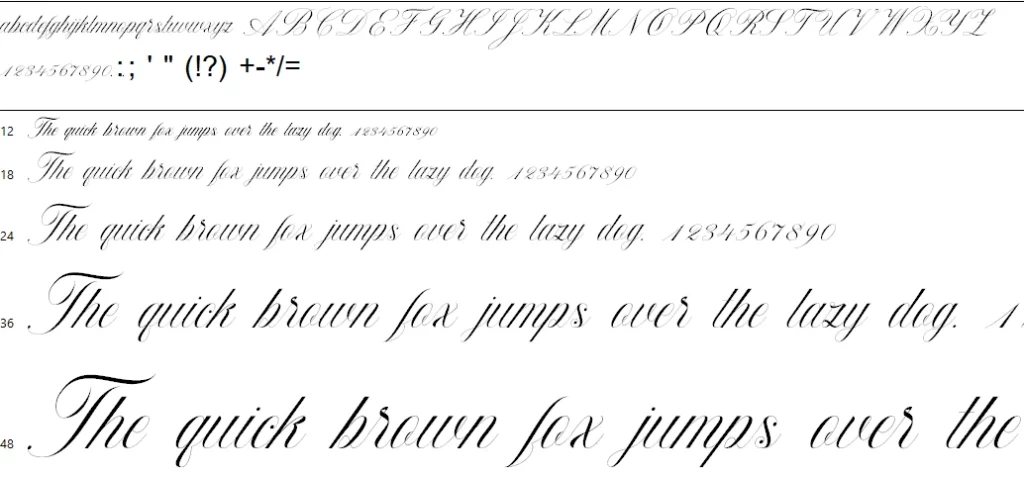
Good day, Guys! We’re going to talk about Beauty Athena Calligraphy Font today. This is a contemporary calligraphy and script font with refined accents. Athena, the goddess of wisdom, courage, inspiration, mathematics, strength, strategy, arts, crafts, and talent, is the inspiration for this piece. This Font is a font with adorable changing characters, reminiscent of a vintage ornate copper letter with a modern twist.
It is meticulously intended to convey elegant elegance and be clean, feminine, sensual, glamorous, simple, and easy to read due to the numerous letter connections. Beauty Athena includes a large number of alternate characters, including language support, digits, and punctuation. Athena, have fun and best wishes. The font comes in two different formats: TTF and OTF. You’ll need an application that supports OpenType capabilities, such as Adobe Illustrator CS, Adobe Indesign & CorelDraw X6-X7, Microsoft Word 2010, or later versions, to activate the OpenType Stylistic alternatives. The font is designed by 38-lineart.
It’s ideal for logos, wedding invitations and cards, and perhaps even a red wine label. This is a hybrid of two styles; you may use it for current minimalism as well as old skilled penmanship. Both of these styles can be used in a variety of formal settings, including invites, labels, restaurant menus, logos, fashion, make-up, stationery, novels, magazines, books, greeting cards, wedding cards, packaging, letterhead, labels, and any other type of advertising.
Beauty Athena Calligraphy Font View